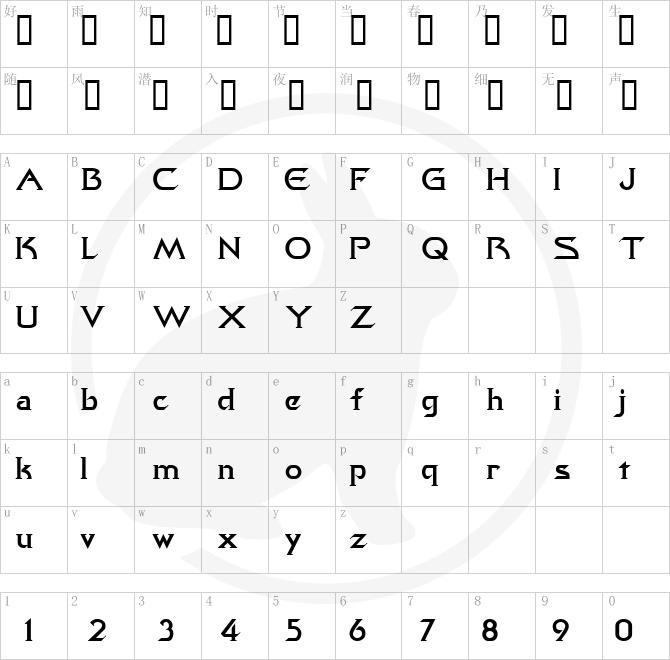
- Font Name:Nairobi
Nairobi-Normal.ttf is a very beautiful artistic font, Nairobi-Normal.ttf is widely used in the design and printing of various books and pictures,Nairobi-Normal.ttf has a strong visual impact,Nairobi-Normal.ttf is a commonly used font in newspapers, magazines and books, and is used in posters, e-commerce Poster design, store design, logo design, font design and other fields.Nairobi-Normal.